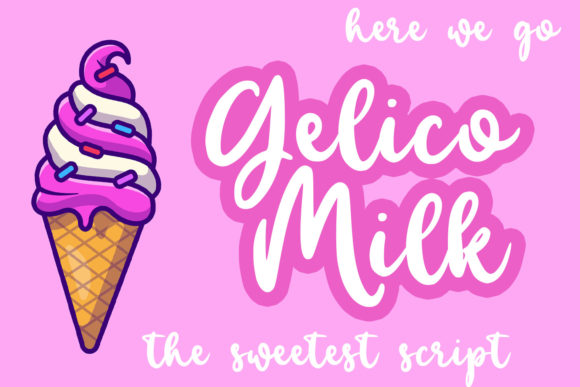
Embark on a culinary adventure with Gelico Milk Font, a handcrafted font that adds a dash of sweetness to your food packaging designs. Inspired by the rich flavors of creamy milk, this font exudes warmth and joy, transforming your packaging into an irresistible invitation to indulge.
Crafted with love by Abodaniel, Gelico Milk is a versatile script font that dances across your designs, bringing life to your product labels, menus, and marketing materials. Its delicate curves and playful swashes add a touch of elegance, while its PUA encoding ensures effortless access to a wealth of glyphs and swashes, empowering you to create truly captivating designs.
Imagine your food packaging adorned with Gelico Milk's charming characters, each letter a delicate stroke of artistry that draws the eye and sparks a craving. This font is the perfect companion for bakeries, confectioneries, and any business looking to create packaging that captures the essence of deliciousness.
With Gelico Milk Font, your food packaging will stand out on shelves, enticing customers with its inviting charm. Its warm and delightful personality promises to turn each of your creations into a work of art, leaving a lasting impression that keeps customers coming back for more.
So, embark on this delectable journey with Gelico Milk Font, and let your food packaging designs become a symphony of flavors that resonates with your customers' hearts and taste buds. Indulge in the sweetness of creativity and watch your business flourish.